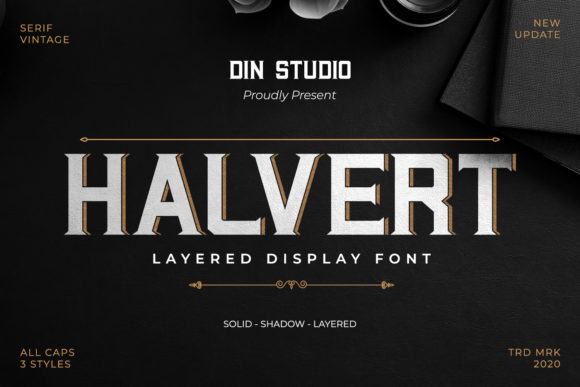
Conjure a world of eloquence and clarity with Halvert Font, the ultimate display font designed to captivate your designs. Experience the finesse of every letterform, meticulously crafted to evoke emotions and leave an unforgettable mark.
Unleash your creativity and let Halvert Font dance across your designs, transforming ordinary words into captivating statements. Its bold and authentic style commands attention, ensuring your designs shine brighter than ever before.
Immerse yourself in a font that redefines readability. Halvert Font's carefully crafted curves and clean lines guide the eye effortlessly across the text, creating an experience that is both enjoyable and immersive.
Whether you're crafting brochures, posters, logos, or digital designs, Halvert Font is your trusted companion. Its versatility knows no bounds, adapting seamlessly to any creative vision you may have.
Join the ranks of design enthusiasts who have discovered the power of Halvert Font. Let your designs speak volumes, leaving an indelible impression on your audience. Embrace the transformative impact of this exceptional font and witness the magic it brings to your creative endeavors.